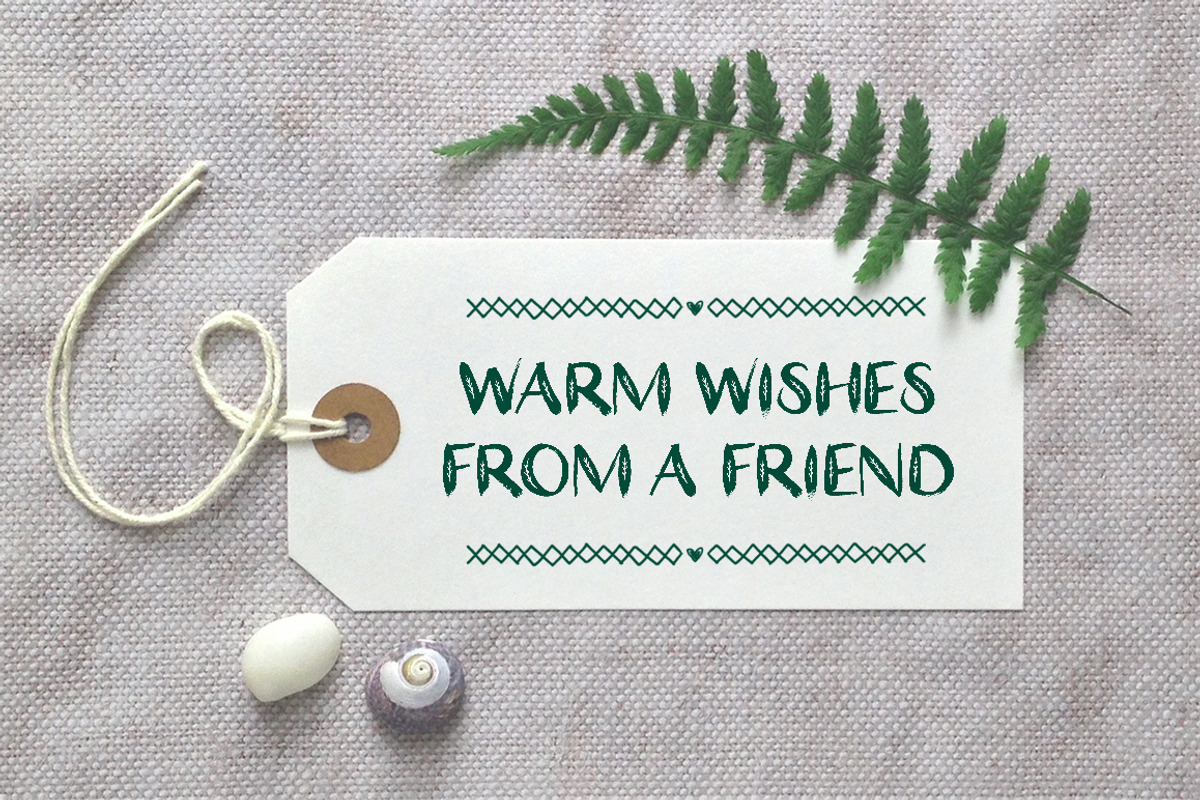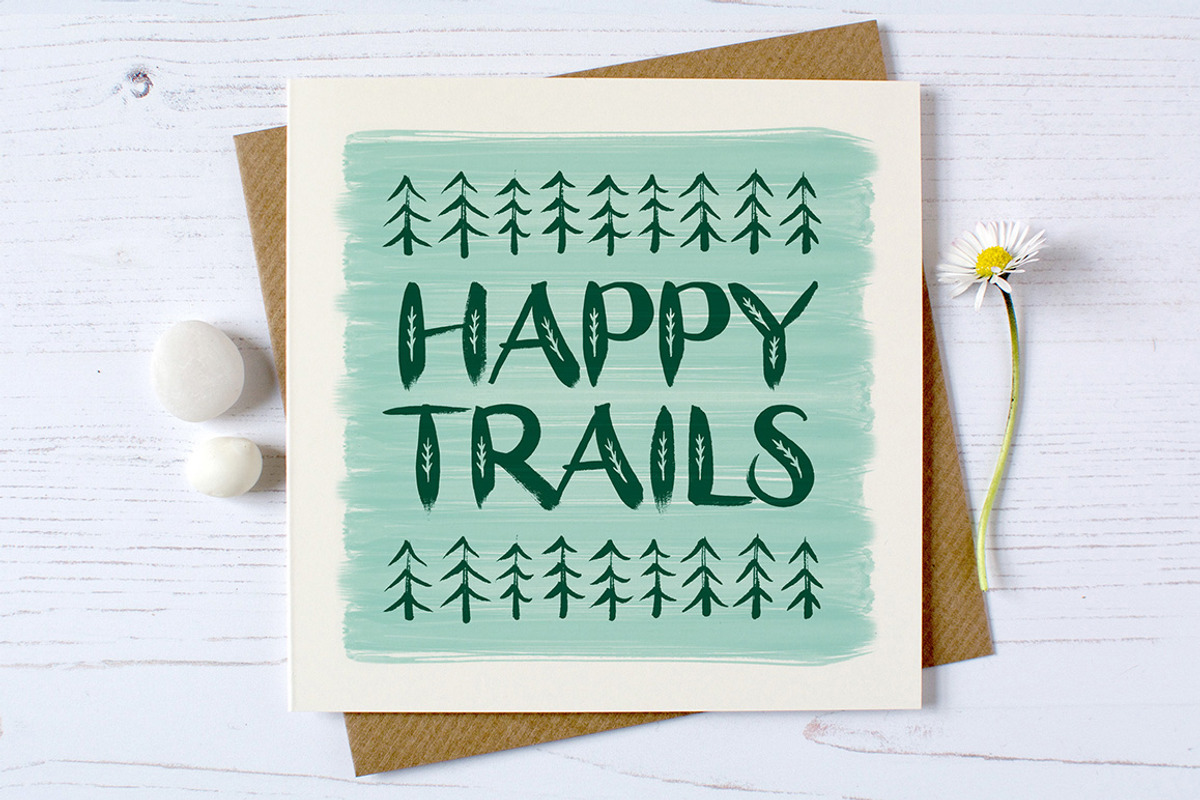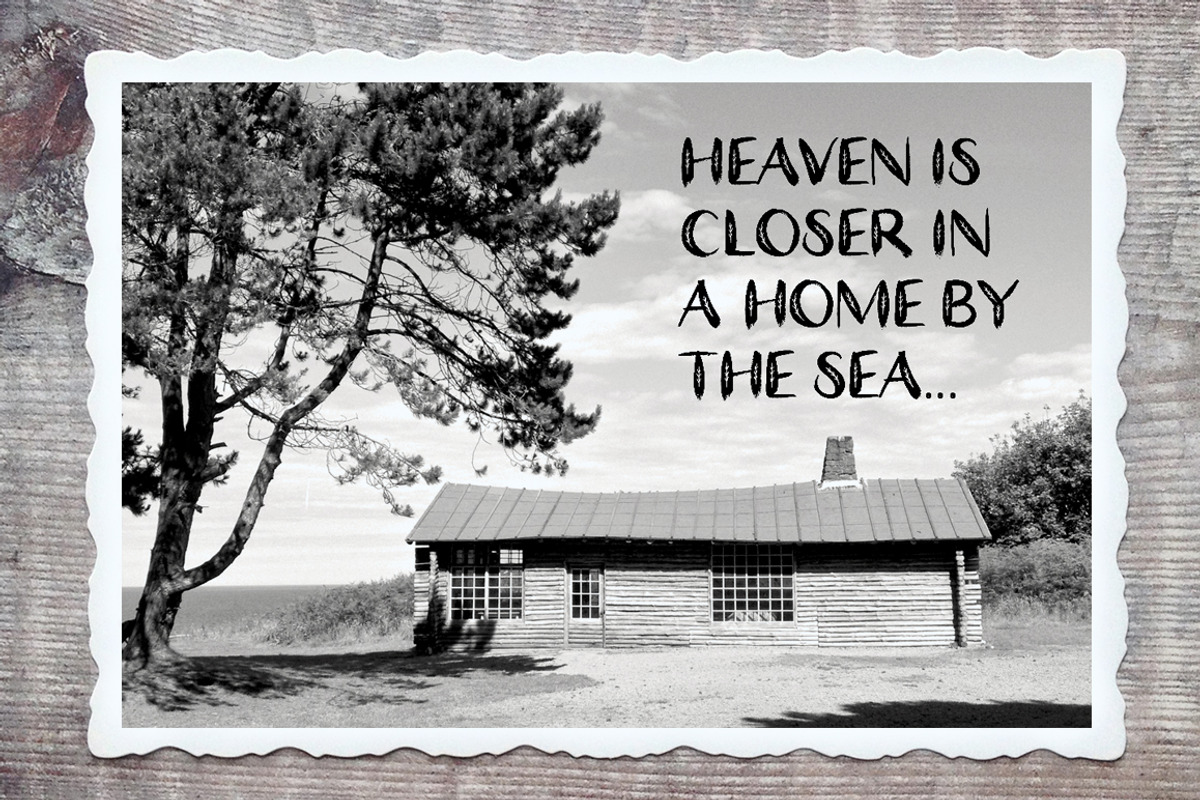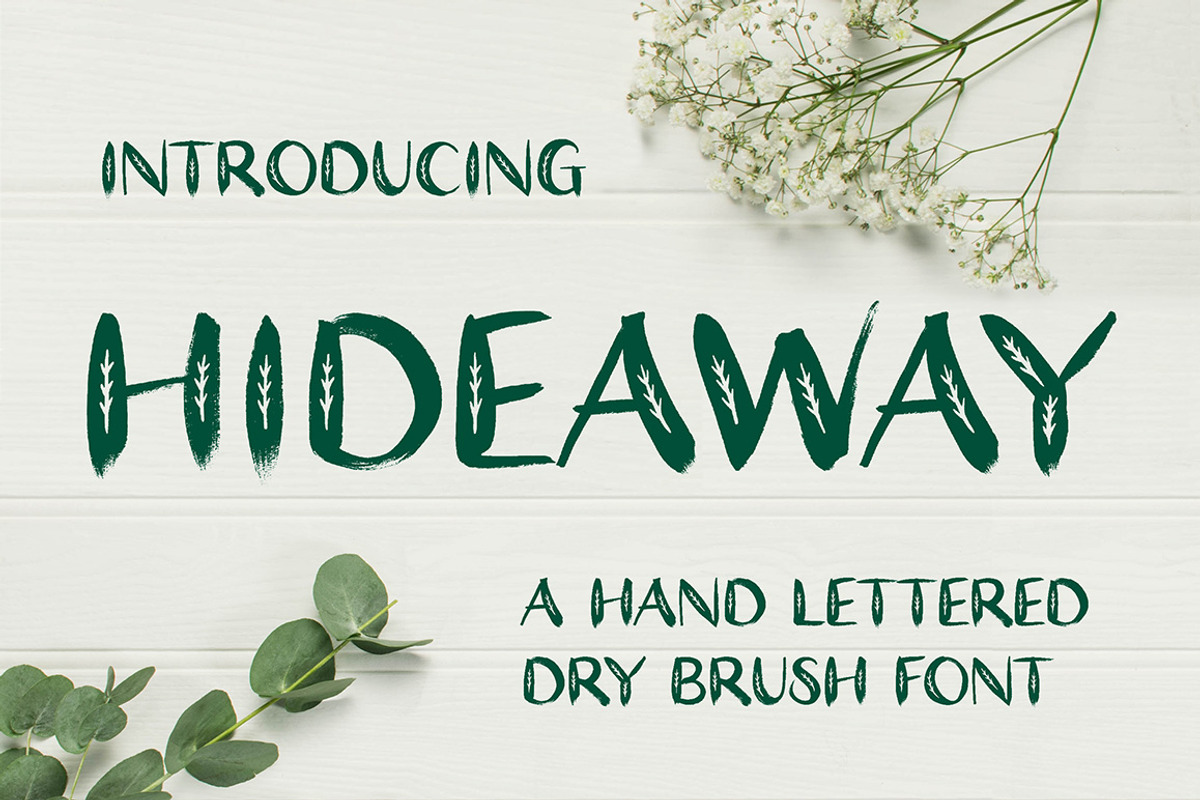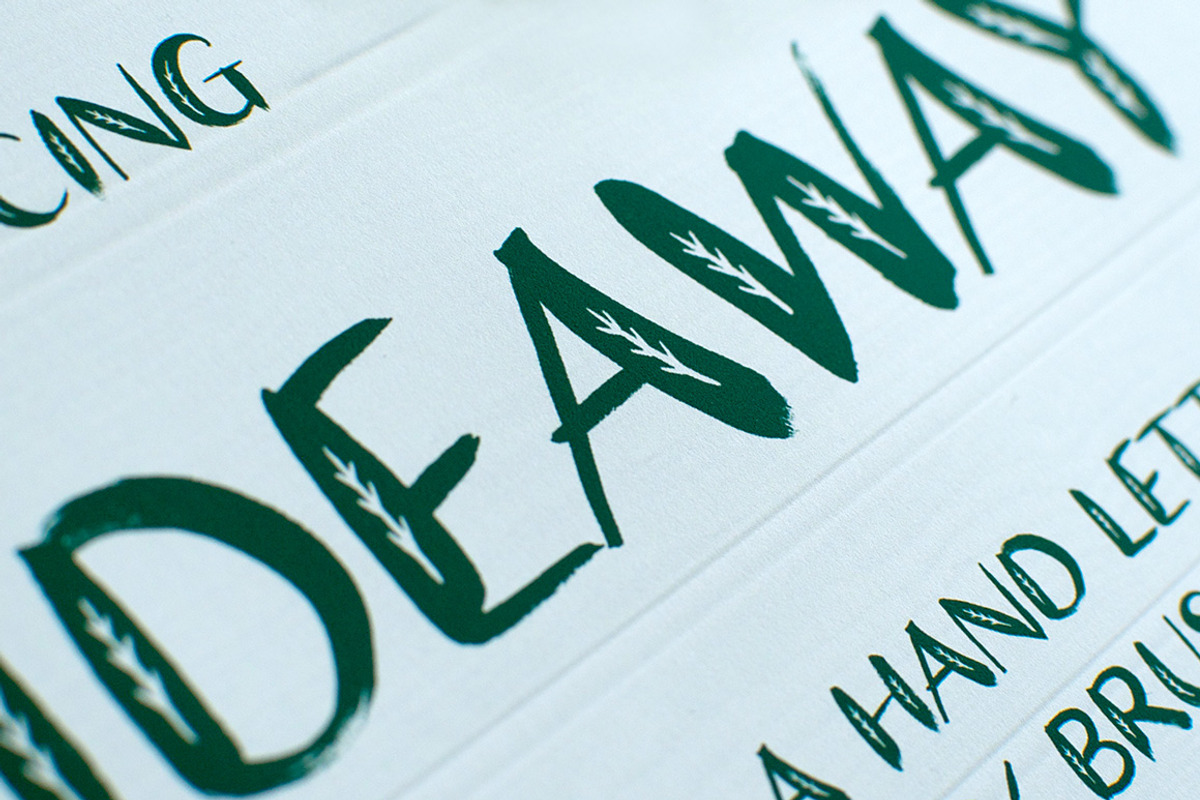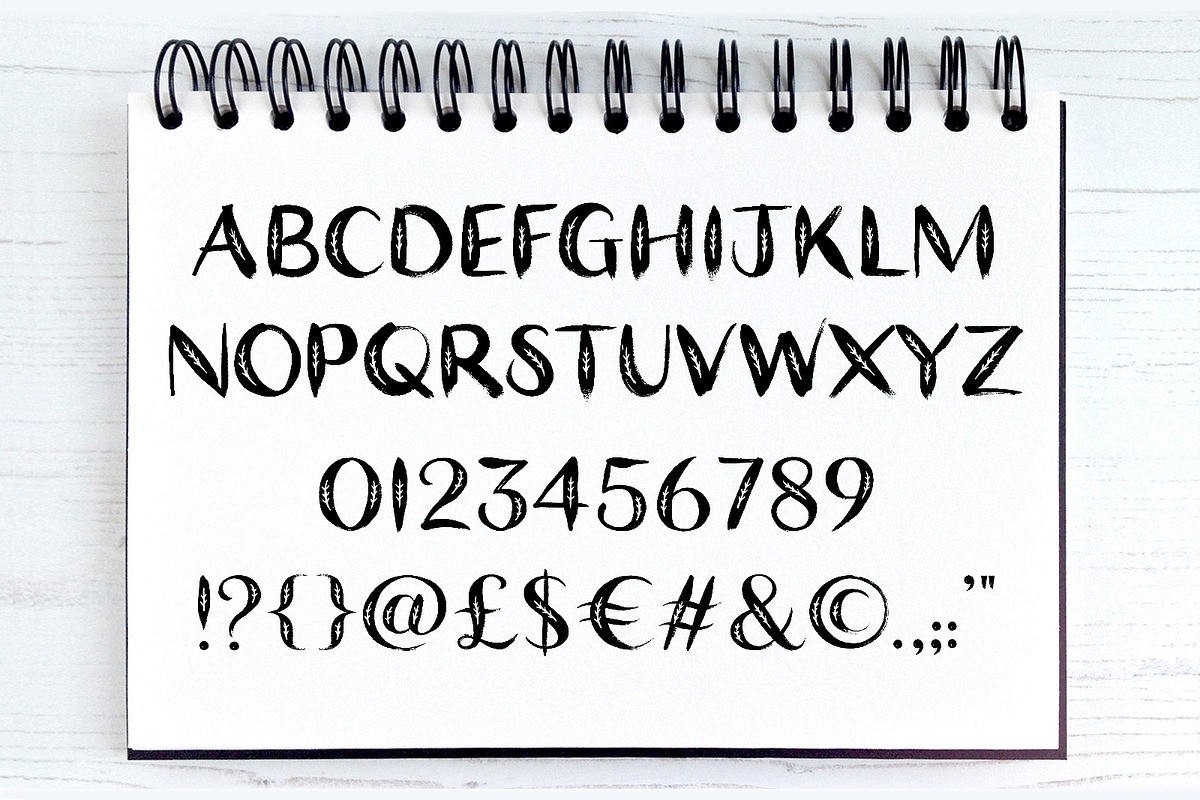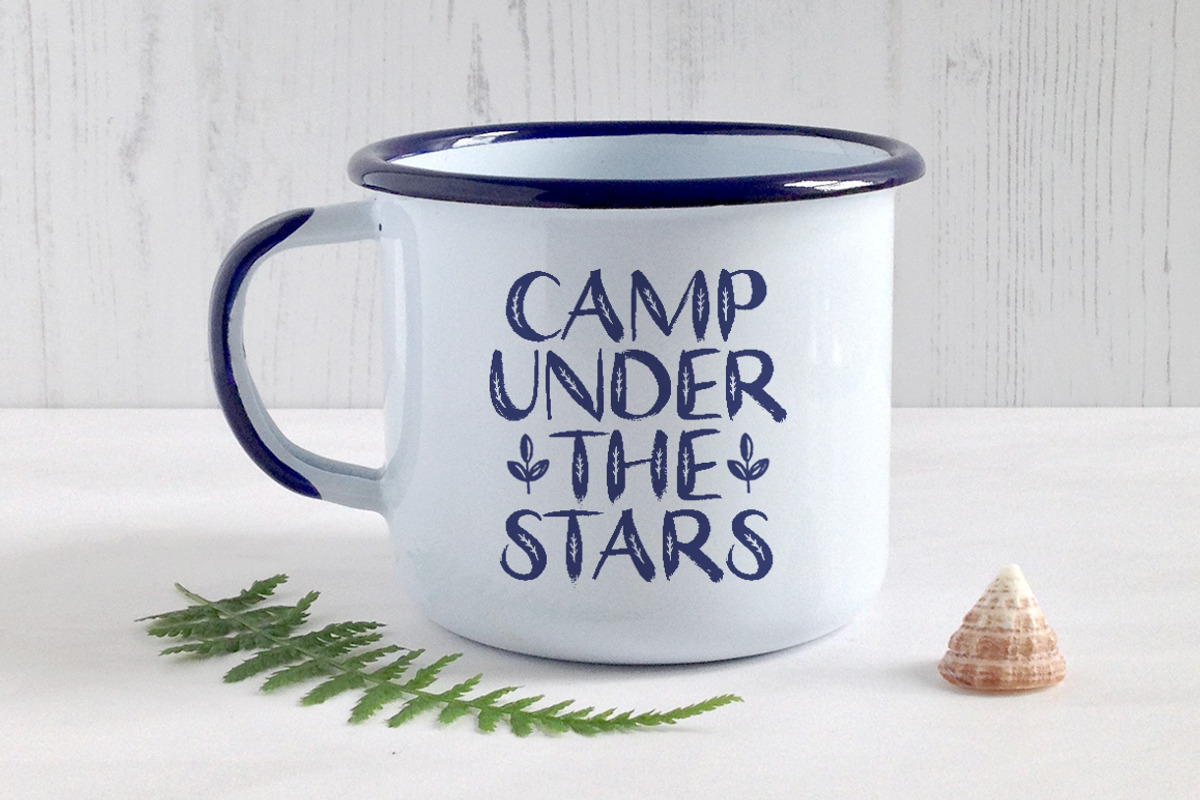
Hideaway Dry Brush Font
A hand lettered dry brush font, bursting with spontaneity and life.
Perfect for projects needing a natural, outdoorsy feel.
Featuring individually hand painted characters, suitable for high resolution print.